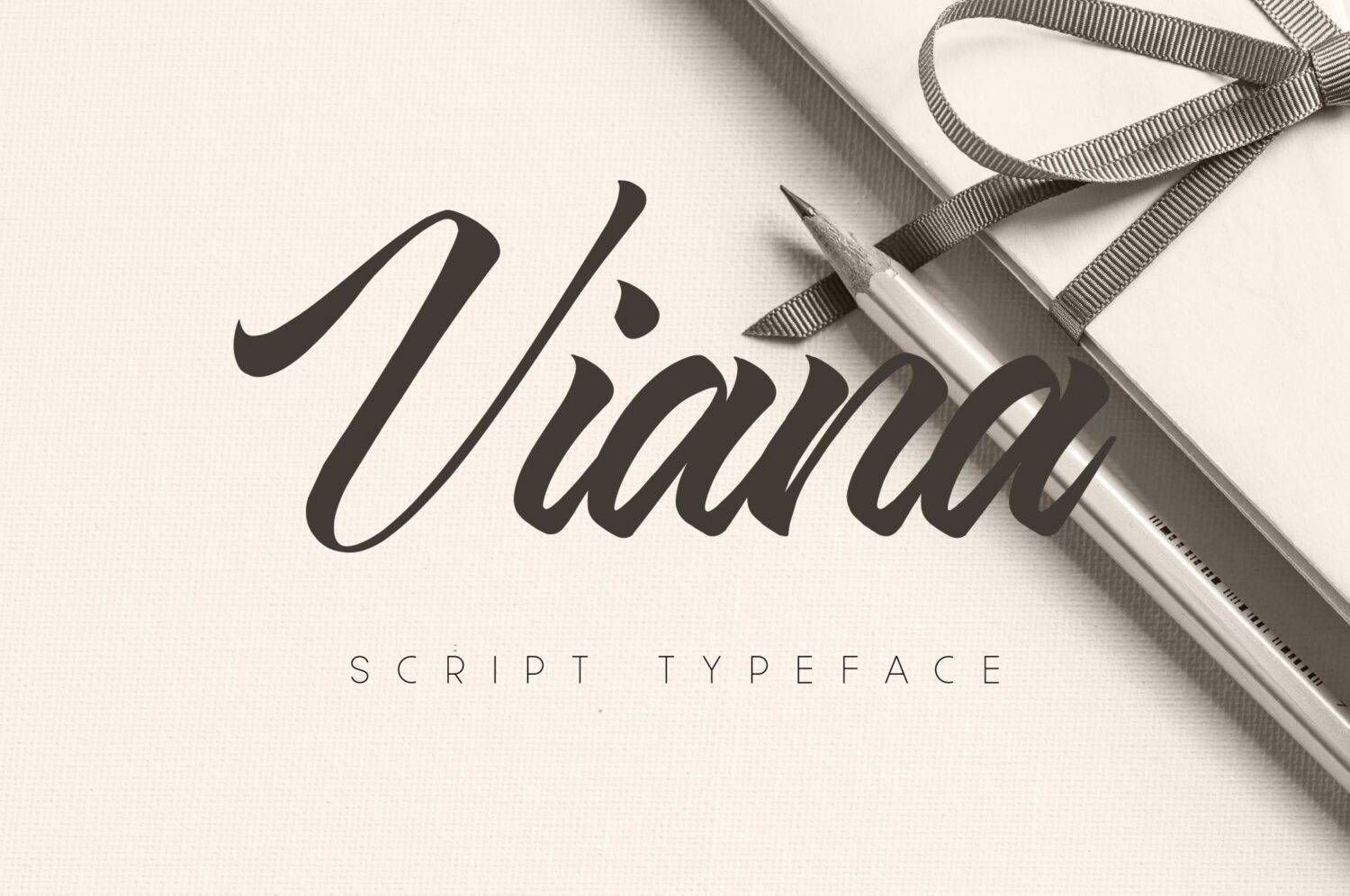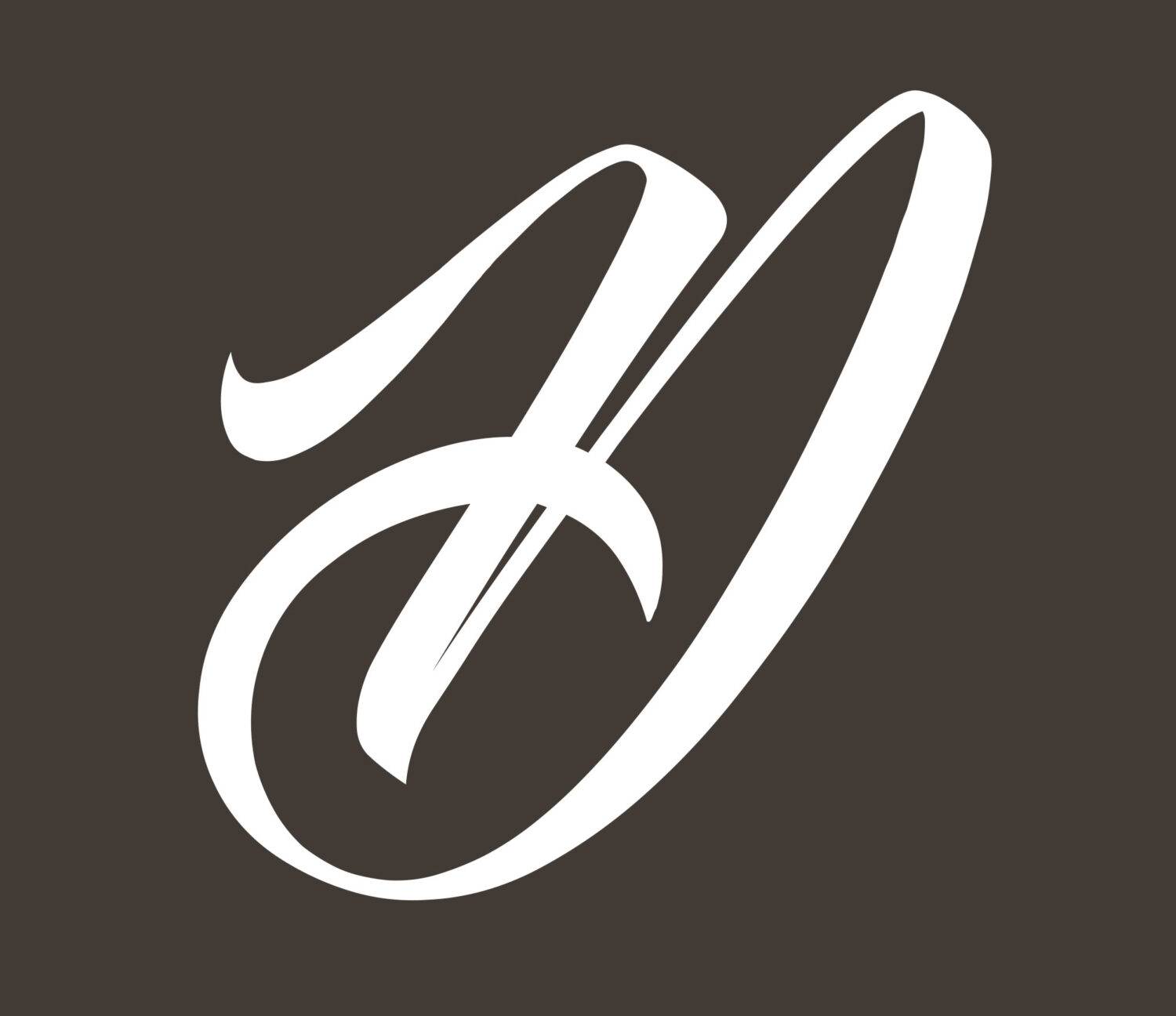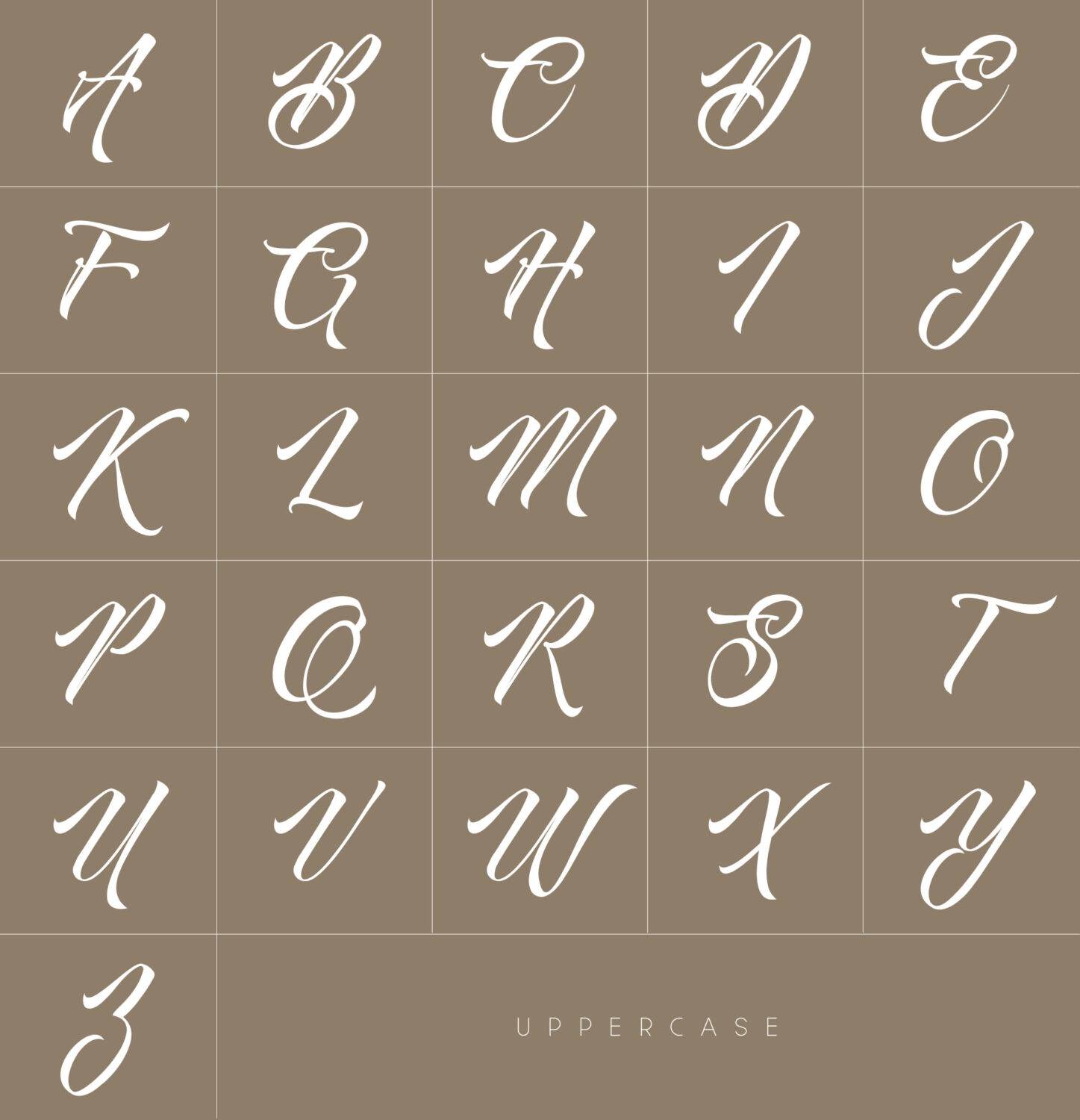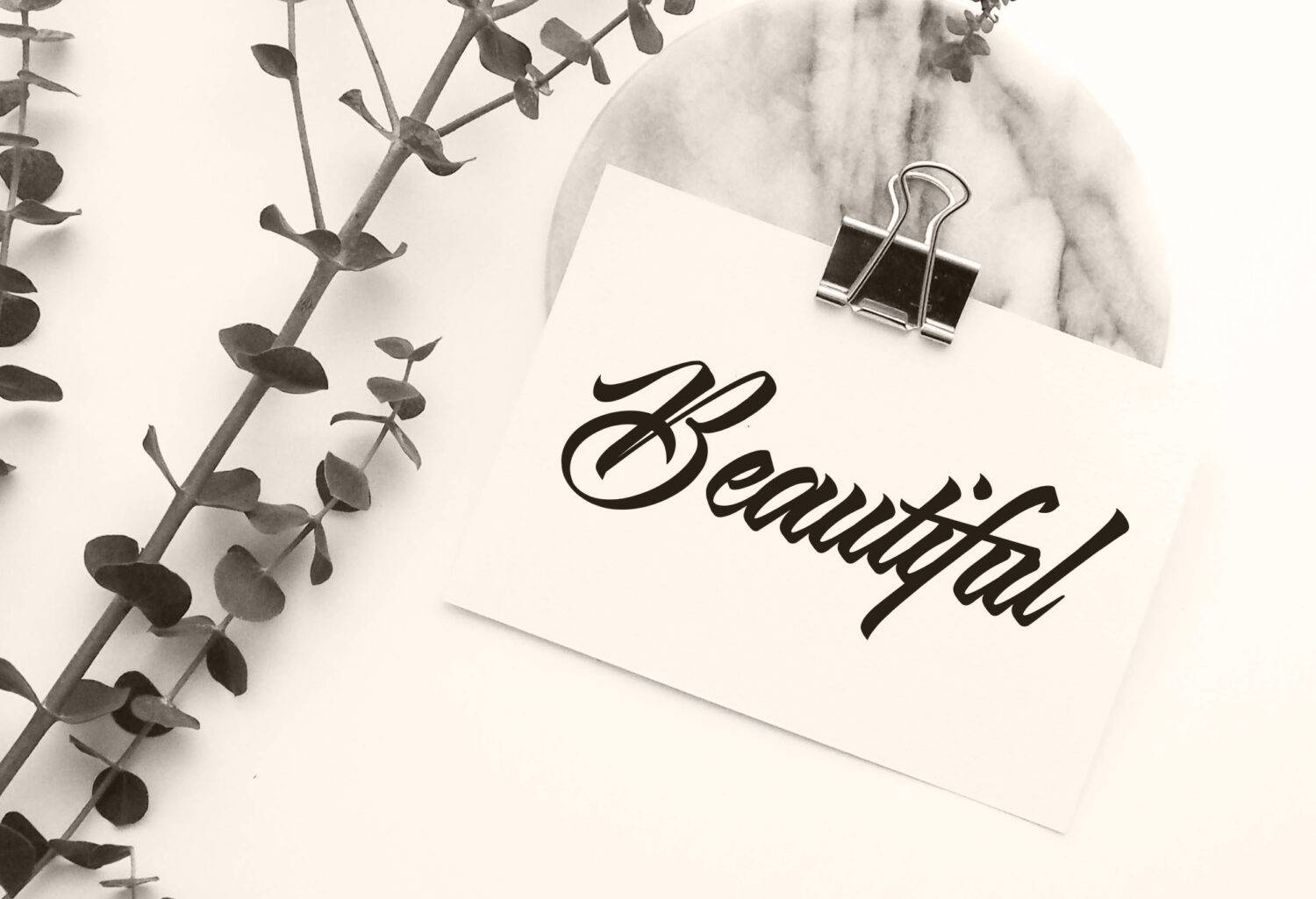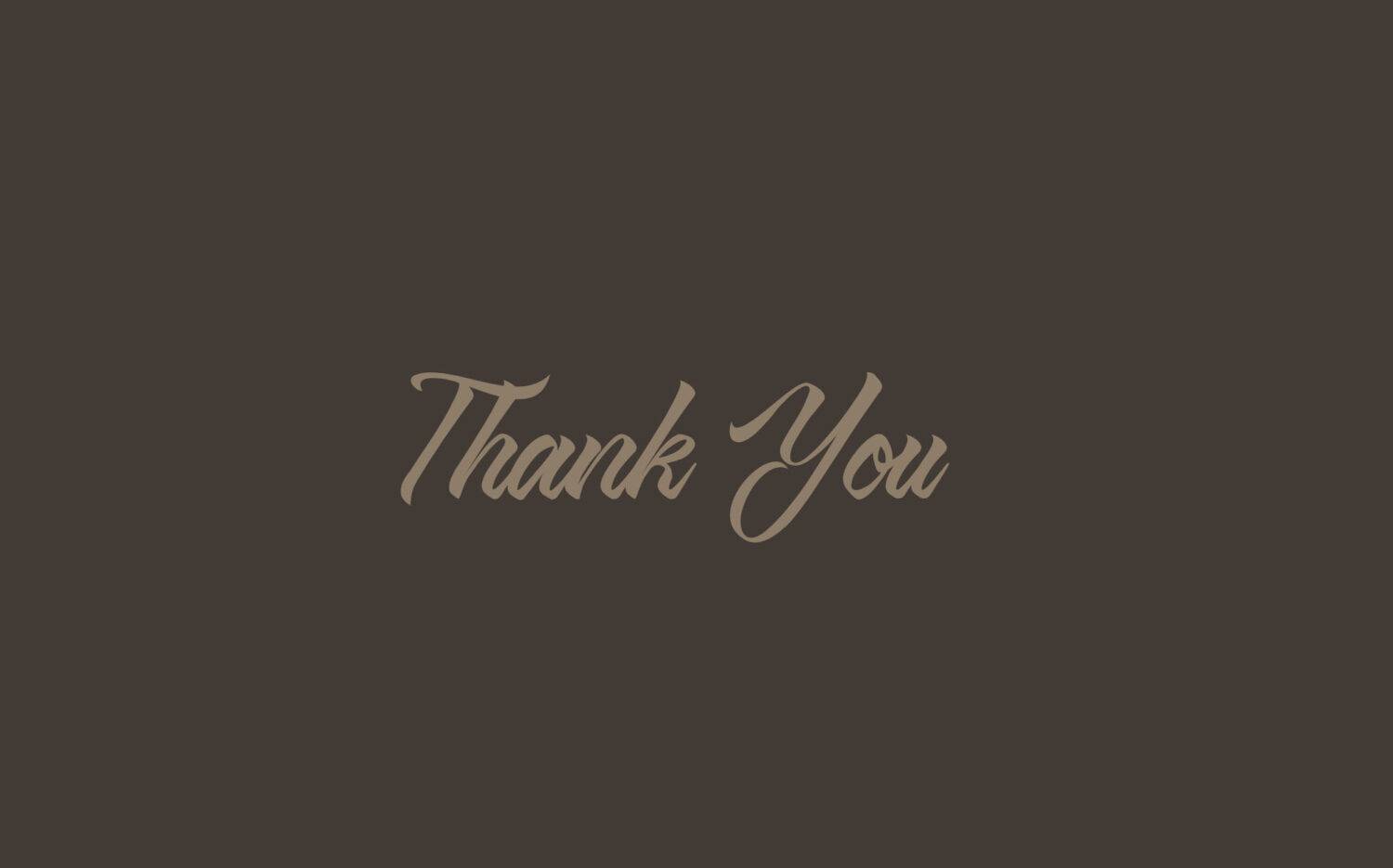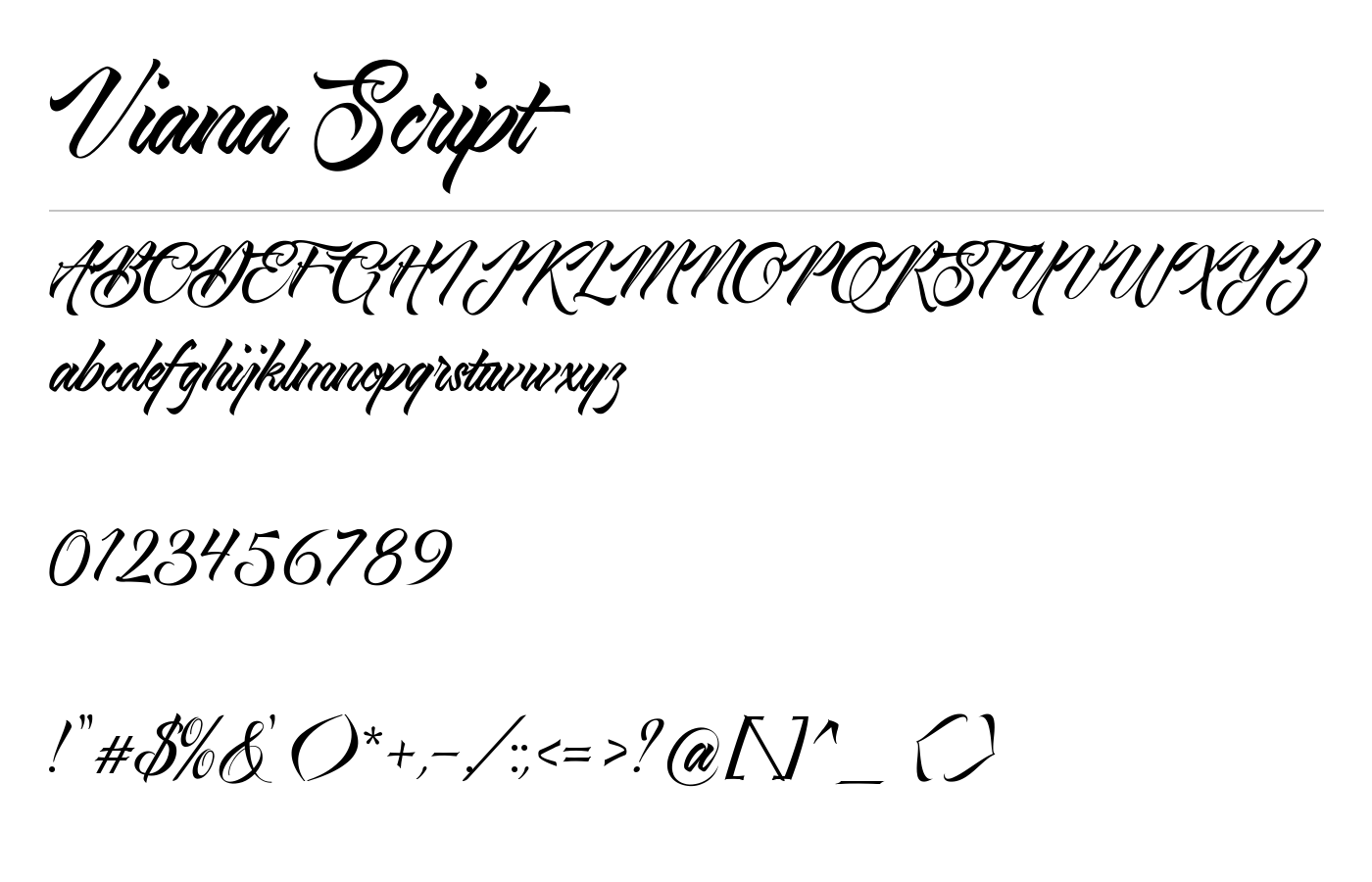
Viana Script is an elegant and flowing script typeface with a strong calligraphic influence, featuring pronounced contrasts between thick and thin strokes that add a refined, sophisticated touch. Its smooth, connected letterforms and stylish flourishes make it ideal for luxury branding, invitations, and headlines where a graceful, personal feel is desired. This font works beautifully in designs that seek to convey elegance and creativity with a modern yet classic script style.
Viana Script Typeface
About Viana Script Typeface